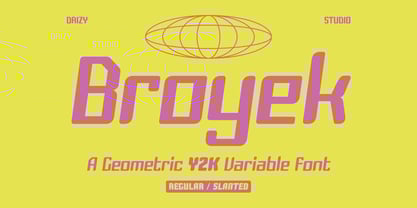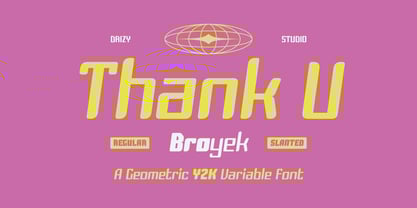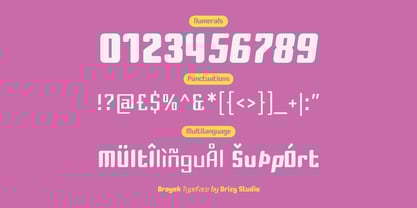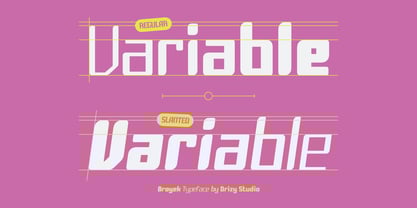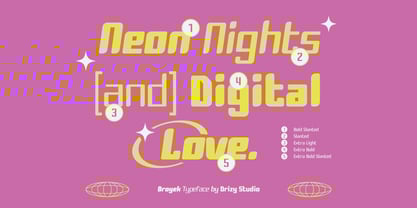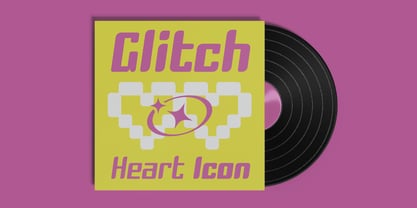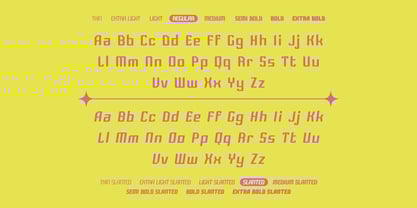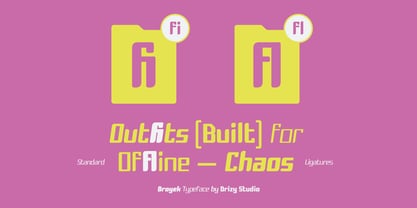
Broyek
by Drizy Font
The Broyek Font Family was designed by Panca Ahmadi Hasan and published by Drizy Font. Broyek contains 16 styles and family package options. More about this family
Broyek – Geometric Y2K Variable Font
Broyek is a variable geometric display font that blends Y2K futurism with sleek modular design. Its sharp angles and tech-inspired forms evoke the digital aesthetic of the early 2000s, while variable styles offer flexibility for dynamic compositions. Perfect for branding, posters, and digital interfaces, Broyek adds a striking, futuristic edge to any creative project.
Broyek – Geometric Y2K Variable Font features:
• Character Set (Uppercase & Lowercase)
• Numbers & Punctuation
• Multilingual
• Ligatures
• Bold, Semi Bold, Extra Bold, Light, Extra Light, Medium, Regular, Thin (Weight & Slanted)
Designers: Panca Ahmadi Hasan
Foundry: Drizy Font